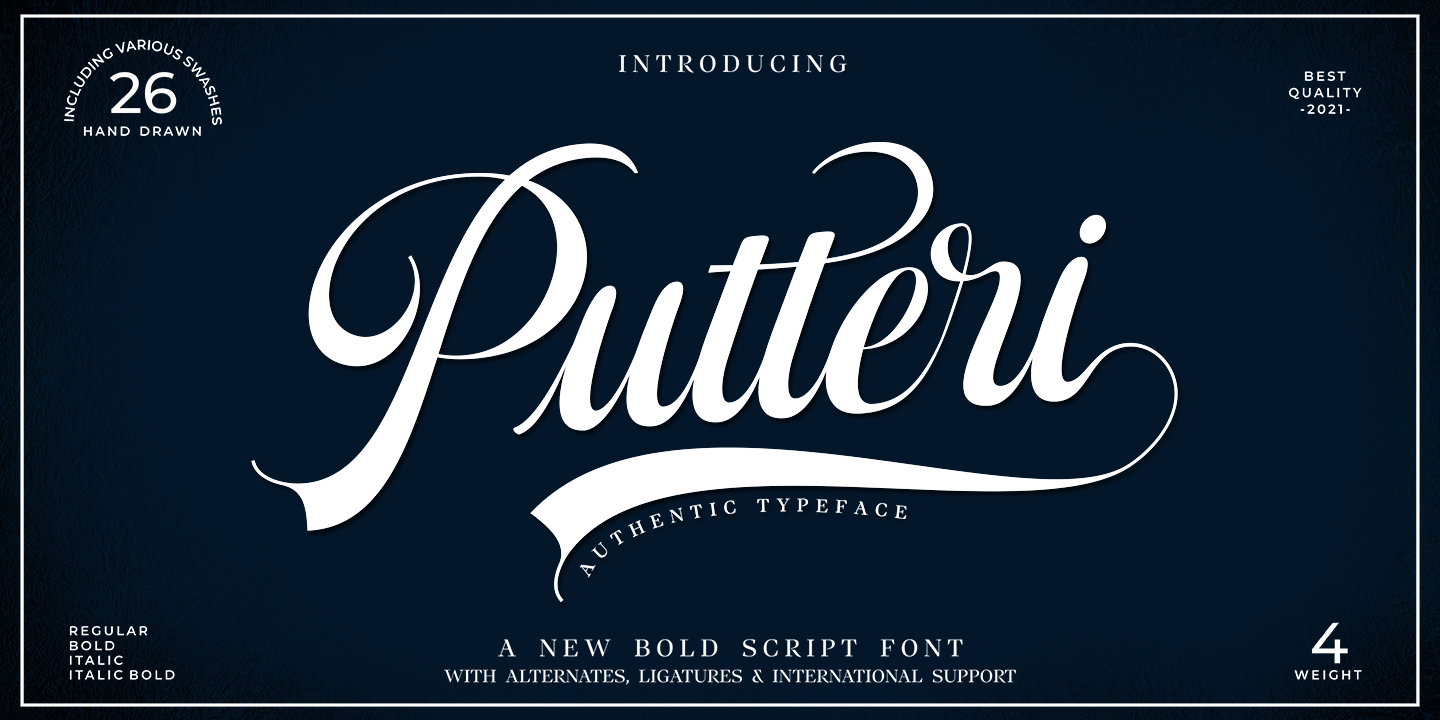
Putteri Script Font is perfect for elegant wedding invitations, luxury brand logos, handwritten greeting cards, romantic poetry books, feminine beauty product packaging, boutique fashion labels, calligraphy workshops, personal stationery designs, and sophisticated social media graphics.
What makes Putteri Script Font so exciting is its graceful feminine elegance and flowing calligraphic beauty that captures the essence of handwritten artistry. This enchanting typeface combines delicate flourishes with sophisticated curves, creating an intimate and romantic atmosphere that speaks directly to the heart and evokes feelings of elegance and timeless beauty.
Putteri Script Font family includes multiple script variations: Regular weight, Bold calligraphy style, Light delicate version, Ornamental flourish format, Condensed elegant edition, Extended flowing style, Swash decorative option, and Alternate character set. Each family member maintains the signature script elegance while offering comprehensive typographic solutions for sophisticated design applications and feminine branding projects.
Experience the romantic charm of Putteri Script Font Free Download - a typeface that brings handwritten elegance and feminine sophistication to your most delicate creative projects. Whether you're designing luxury wedding materials, beauty brand packaging, or romantic marketing campaigns, this font delivers authentic script beauty that resonates with audiences who appreciate refined elegance.
The versatility of Putteri Script Font excels across both digital and print luxury applications. It performs beautifully in wedding websites, beauty brand interfaces, greeting card designs, and premium packaging, maintaining its elegant script character across all platforms. The font's carefully crafted letter spacing ensures perfect readability while preserving its flowing calligraphic personality and romantic appeal.
Professional designers consistently choose Putteri Script Font for projects requiring feminine elegance and romantic sophistication. Its graceful character makes it ideal for brands focused on beauty, romance, and luxury lifestyle, helping establish emotional connections with audiences who value handcrafted quality and timeless feminine elegance.